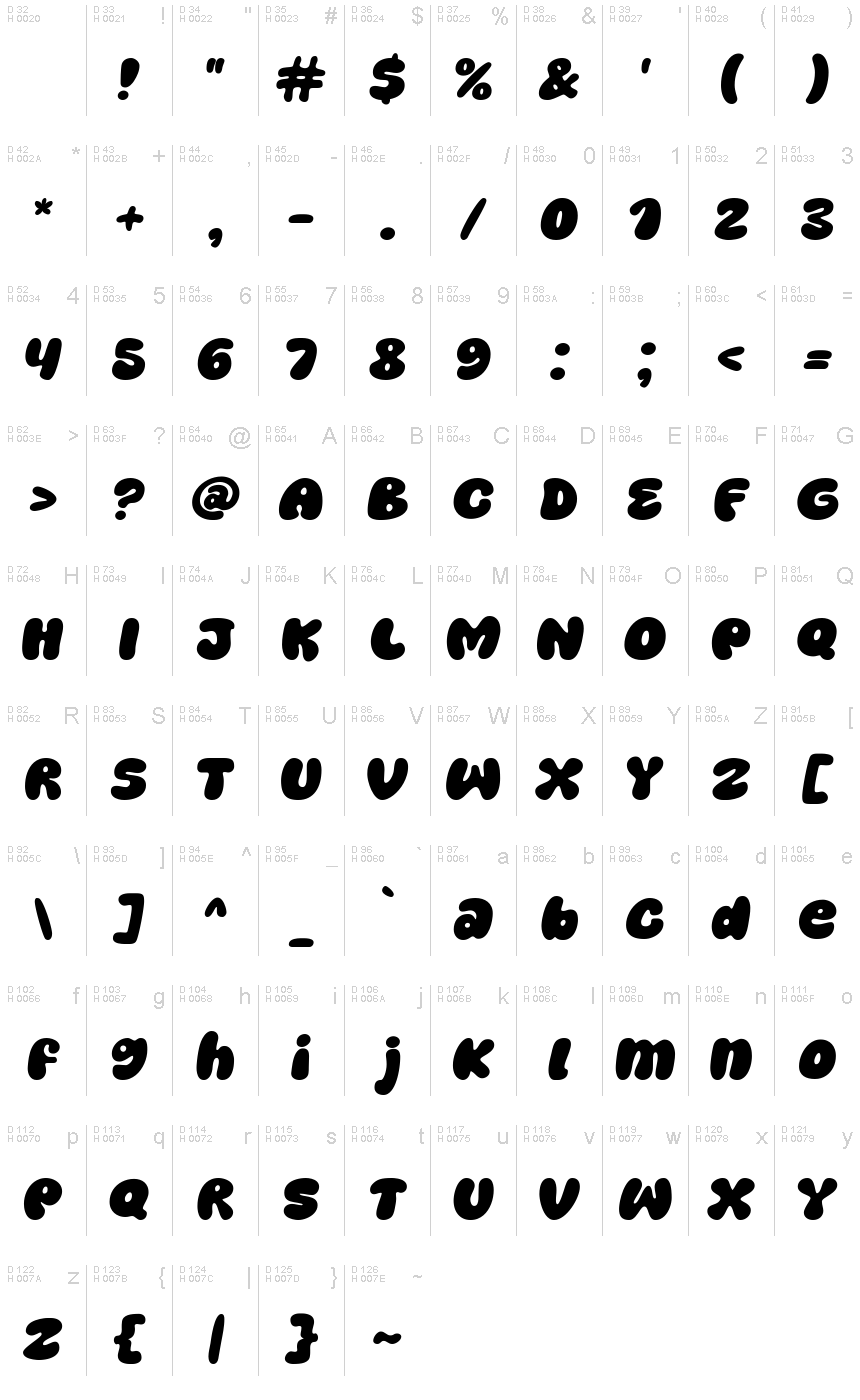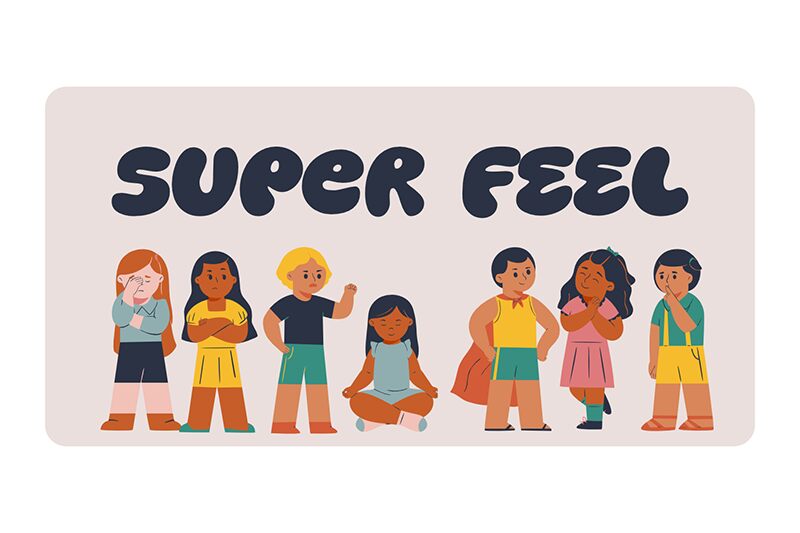
Super Feel
Super Feel font is the work of fsuarez913, a retro-inspired cartoon display typeface whose elements heavily rely on rounded ends and ultra-thick lines. It brings a fun, nostalgic vibe with it thanks to its 1970s-style influence perfectly visible due to all the above-listed design methods. The retro-type is unique in its character and can be instantly recognized on typographic design projects.